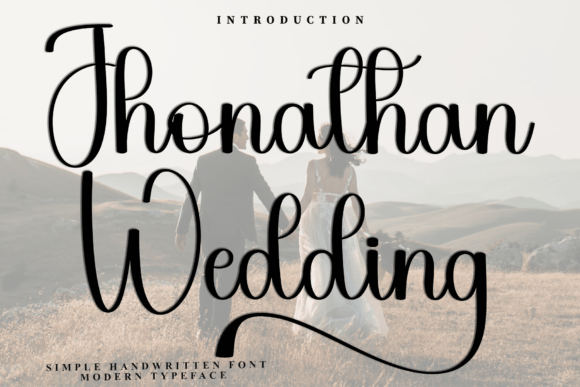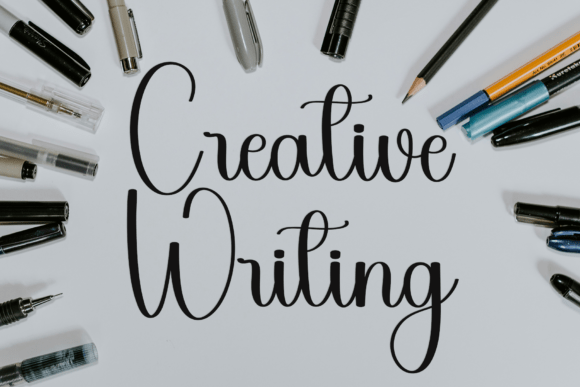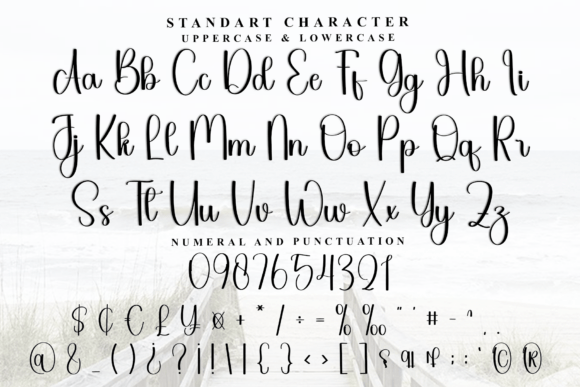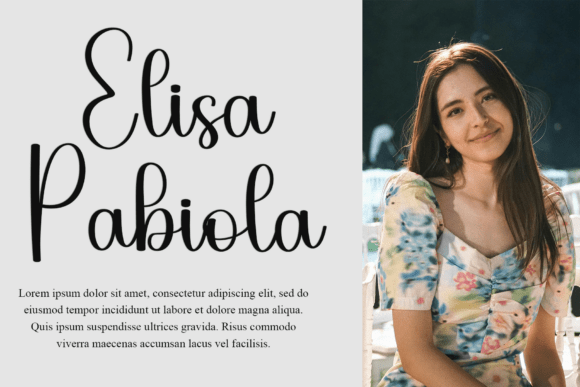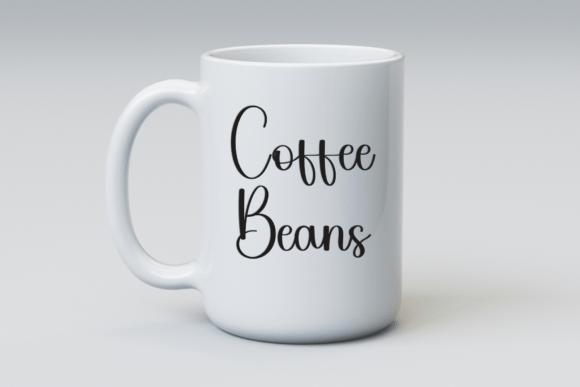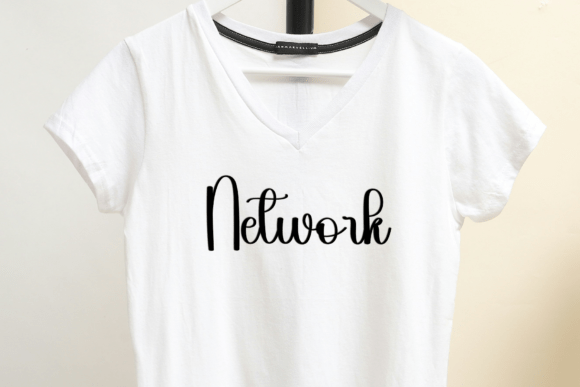
The Magic of the Holiday Season in Type
There’s nothing quite like the feeling of rummaging through a stash of old Christmas cards and wrapping paper, reminiscing about past holiday seasons. As designers, we’re often tasked with capturing that same magic in our work. Whether it’s a festive greeting card or a holiday-themed website, the right typography can make all the difference.
That’s where the Jhonathan Wedding Font comes in – a festive and merry typeface that embodies the spirit of the holiday season. With its decorative elements and whimsical flair, this font adds a touch of enchantment to your designs, making it perfect for projects that require a cheerful and nostalgic ambiance. As a designer, having access to a versatile font like Jhonathan Wedding Font can be a game-changer, allowing you to create truly unique and captivating holiday-themed designs.
Jhonathan Wedding Font Key Features
- Unique Characteristics: Jhonathan Wedding Font features elegant, cursive script with intricate details, perfect for wedding invitations, cards, and other special occasions.
Jhonathan Wedding Font Review
I recently had the chance to work with Jhonathan Wedding Font, and here’s my honest take on it.
This font has some great qualities that make it a solid choice for wedding invitations and other special occasions. Here are a few things I liked:
- Beautiful, elegant script: The font has a lovely, flowing feel to it that’s perfect for romantic and whimsical designs.
- Good legibility: Despite its cursive nature, the font is still easy to read, even at smaller sizes.
- Comprehensive character set: The font includes a wide range of characters, including special symbols and accents.
While Jhonathan Wedding Font has many great qualities, there are a few limitations to be aware of:
- No bold or italic variations: The font only comes in a single weight, which can limit your design options.
- Not ideal for large blocks of text: Due to its script nature, the font can be tiring to read when used in large quantities.
Overall, I think Jhonathan Wedding Font is a great choice for special occasions, but it may not be the best fit for every project. With its beautiful script and good legibility, it’s perfect for romantic and whimsical designs, but it may not be the best choice for larger blocks of text or more formal designs.
The Jhonathan Wedding Font is ideal for wedding invitations, wedding stationery, and other wedding-related materials. To get the most out of it, use it in conjunction with elegant graphics and subtle colors. You can also use it to create a cohesive look for your wedding branding.
Q: Is the Jhonathan Wedding Font available in different languages?
Yes, the Jhonathan Wedding Font includes support for multiple languages, including English, Spanish, French, German, Italian, Portuguese, and many more. The font also includes Unicode characters, ensuring compatibility with a wide range of languages and scripts.